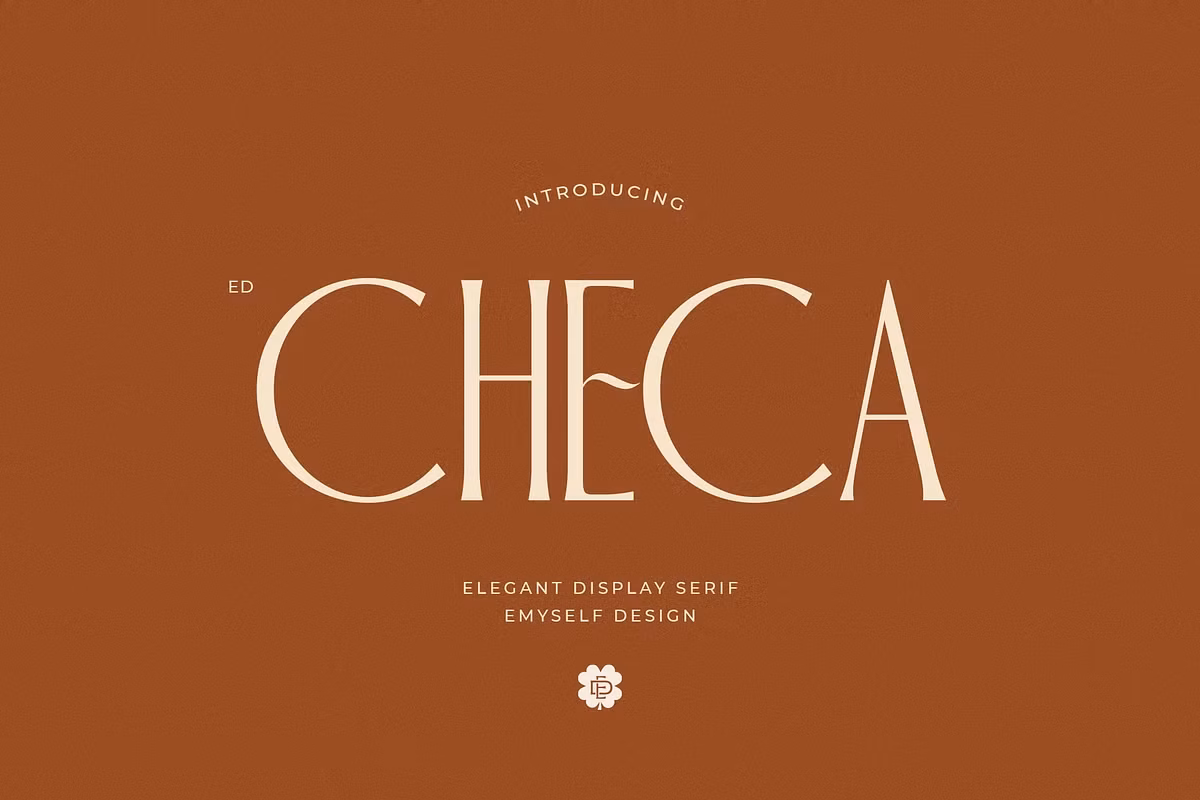
ED Checa - Elegant Serif Free Download
Please note that you must purchase this font for commercial use. You can download ED Checa – Elegant Serif Font for free, strictly for personal testing purposes only. ED Checa is a sophisticated and modern serif font designed to add elegance and refinement to any project. With its sharp serifs, high contrast, and timeless structure, ED Checa Font Free Download is perfect for luxury branding, editorial designs, logos, invitations, and high-end marketing materials.
This font exudes a sense of class and sophistication, making it ideal for both professional and creative uses. It includes uppercase and lowercase letters, numerals, punctuation, and multilingual support, providing versatility across global design projects.
Whether you’re creating a premium brand, designing a polished editorial layout, or working on upscale promotional materials, ED Checa brings sophistication and elegance to your typography.